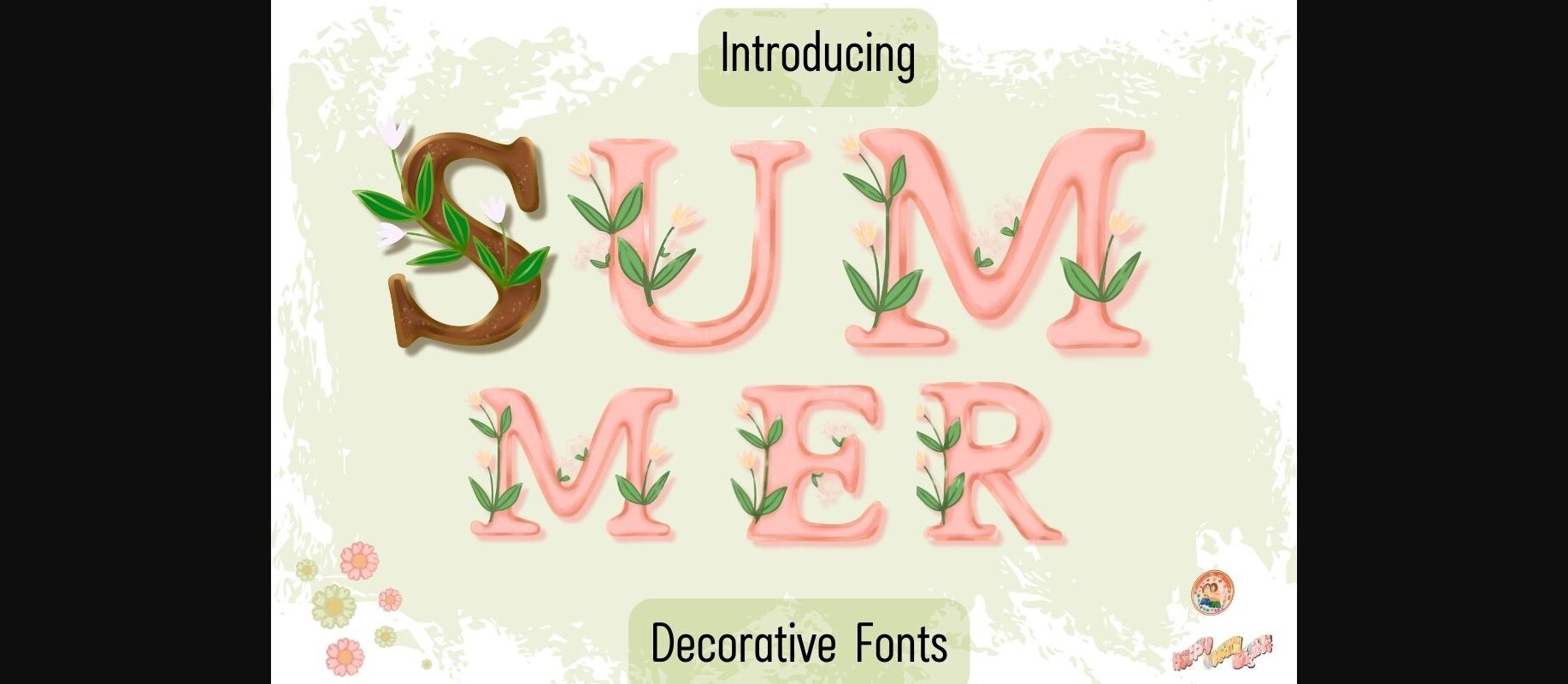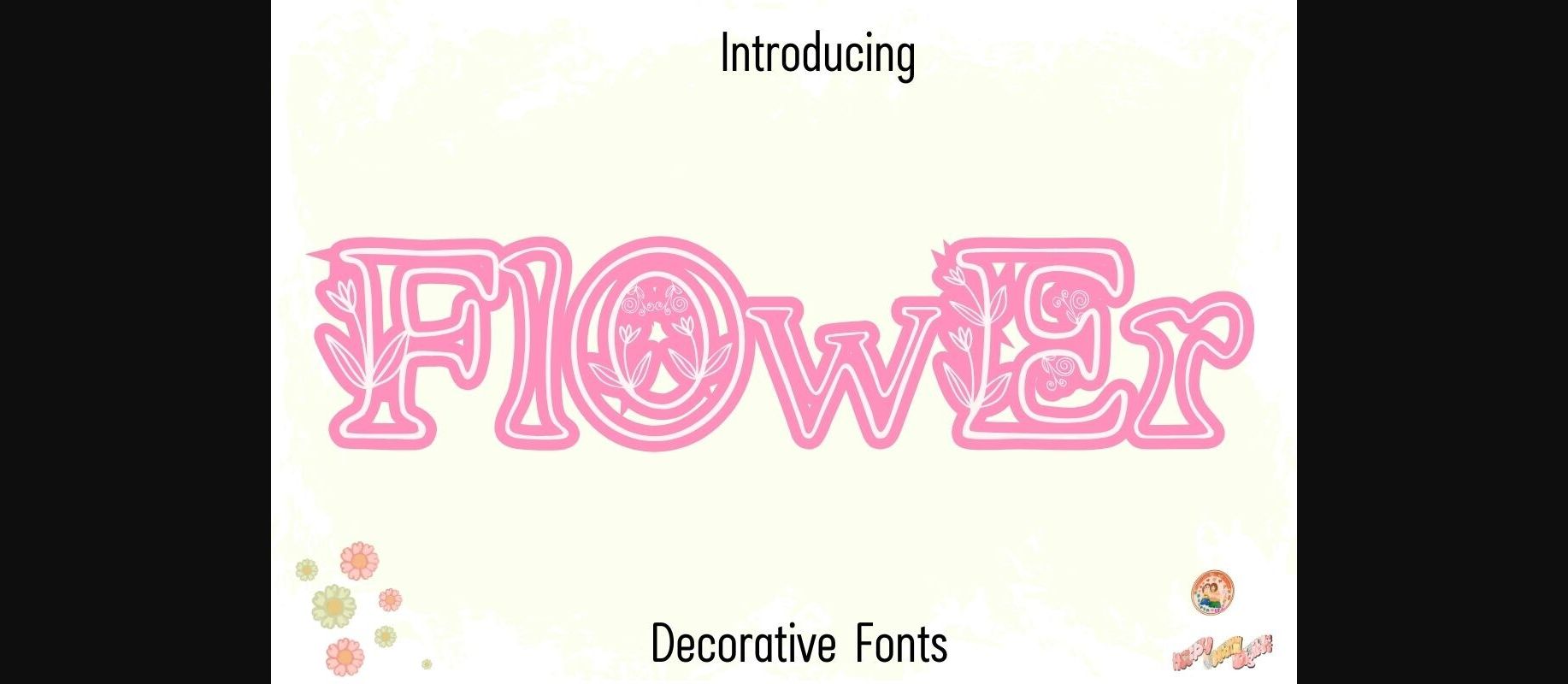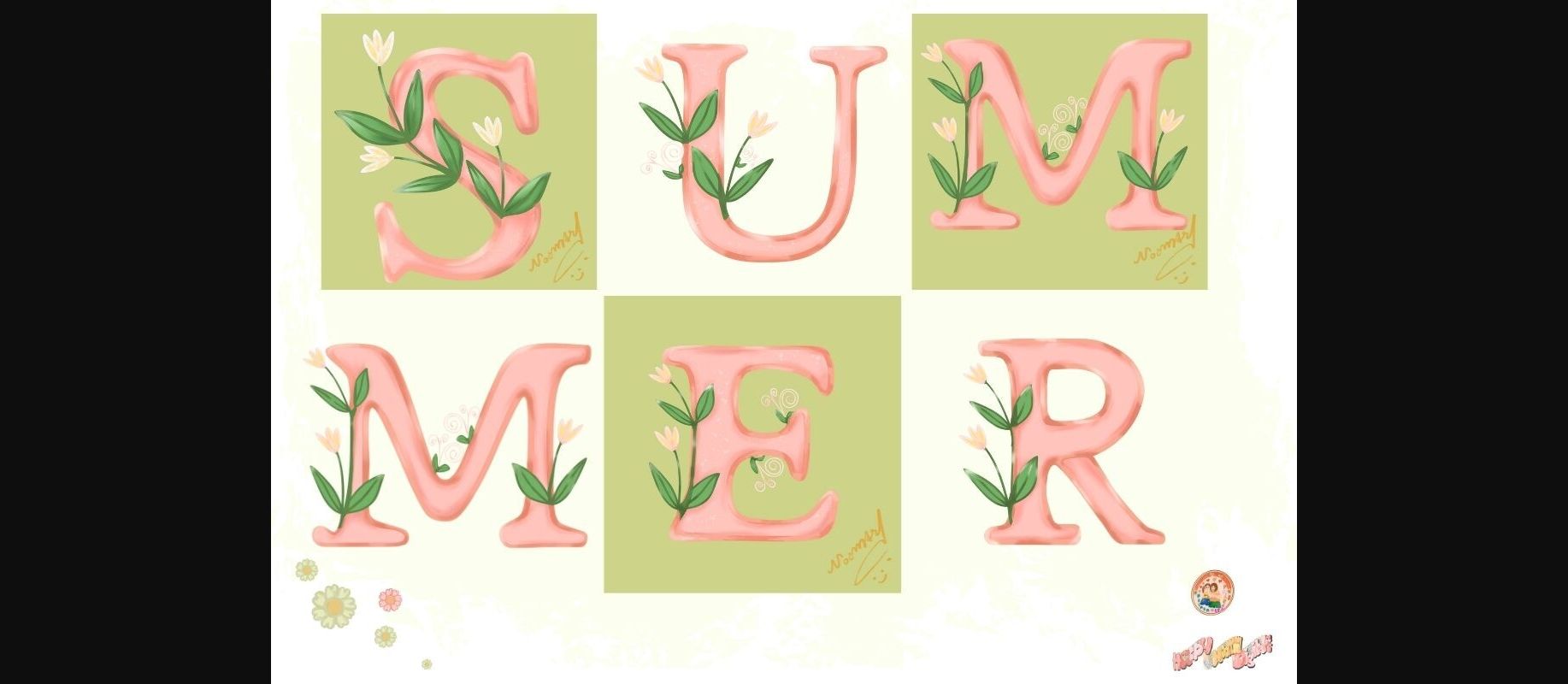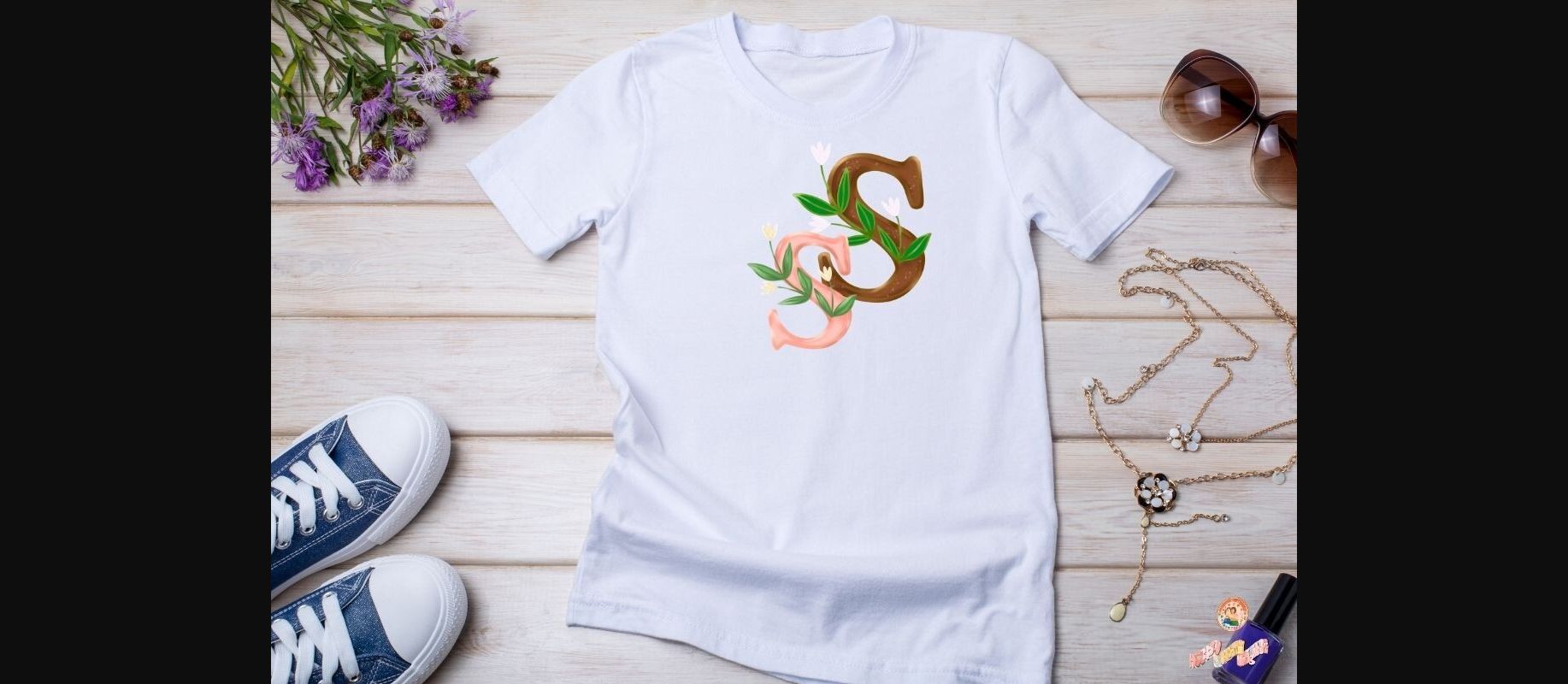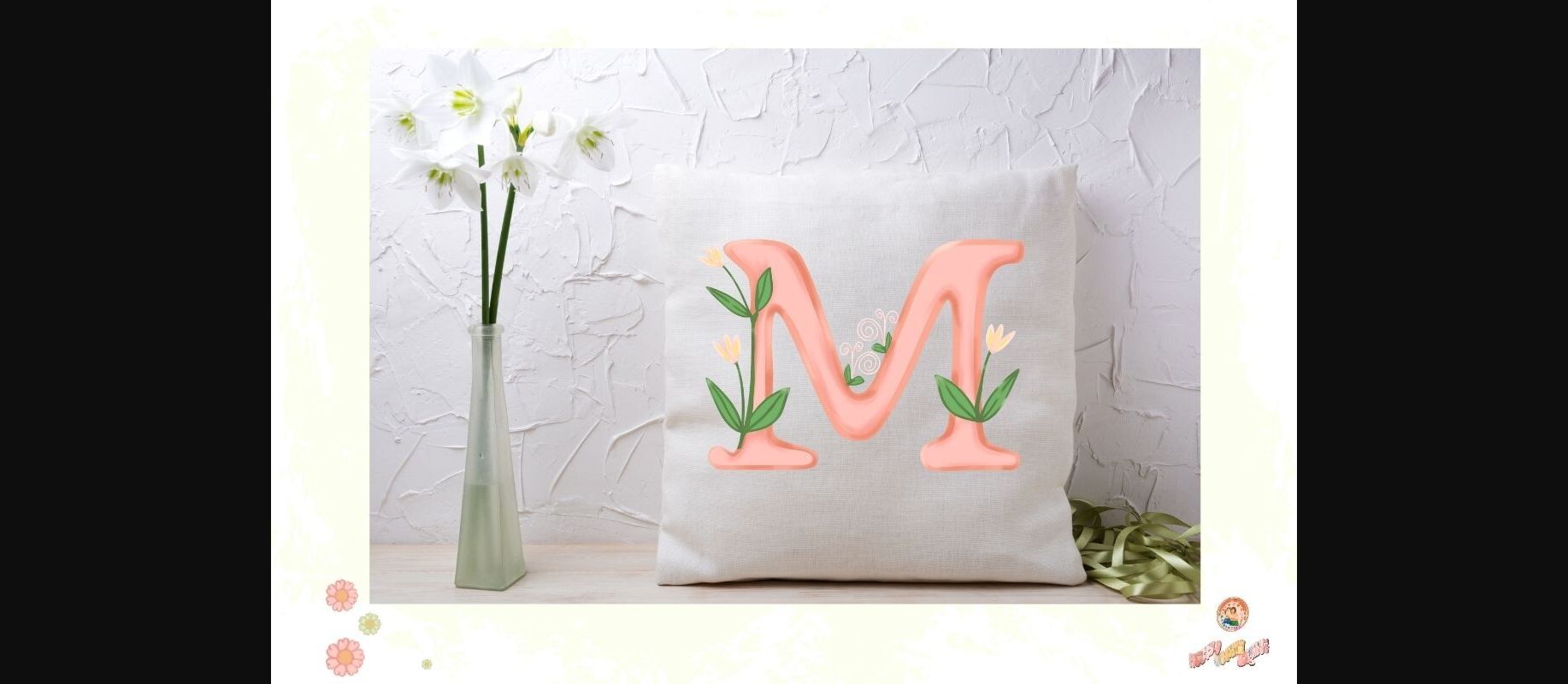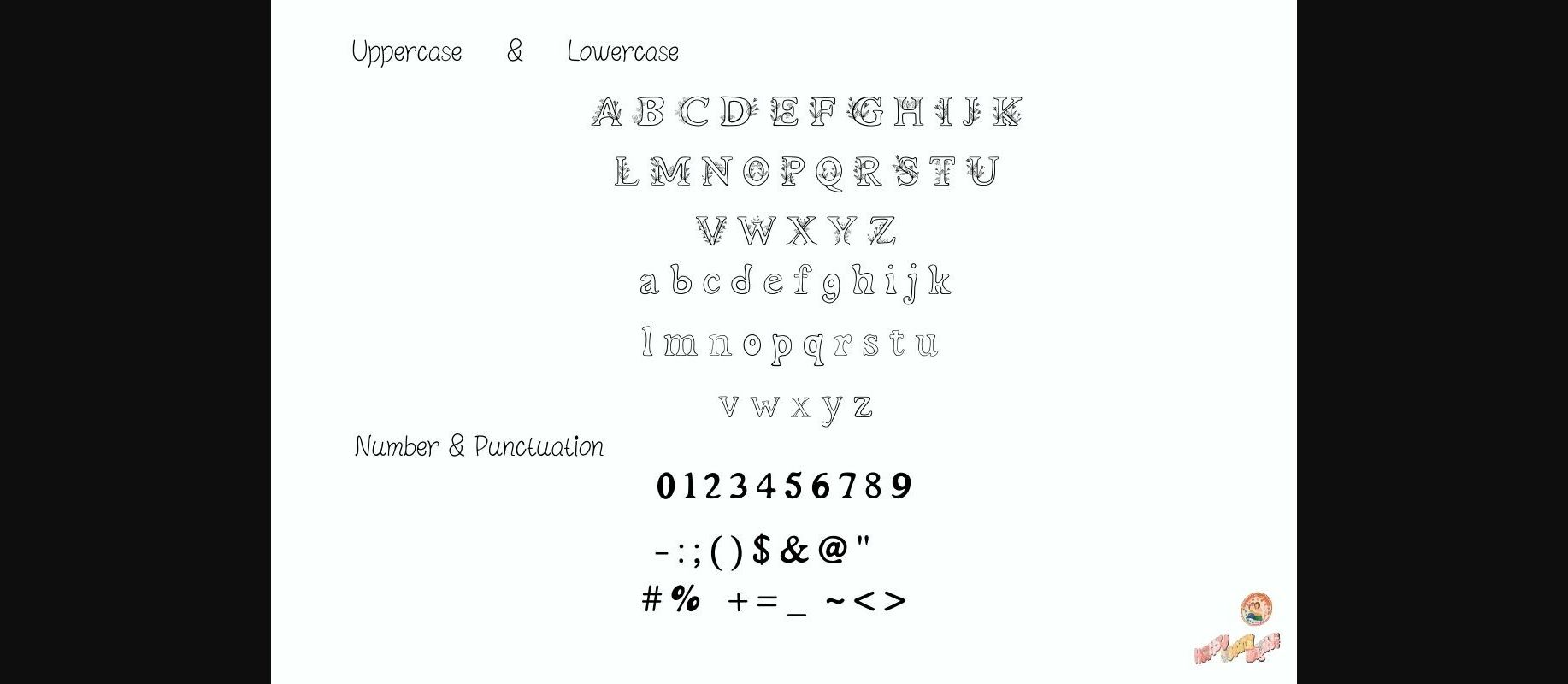
Summer Nature Font
About Summer Nature Font
Introducing ‘Summer Nature’ font, the design each letter in a nature flowers beautiful. This decorative typeface features delightful elements integrated into each letter. Whether you’re creating holiday cards, gift tags, or seasonal banners,t-shirt and many more children’s products .